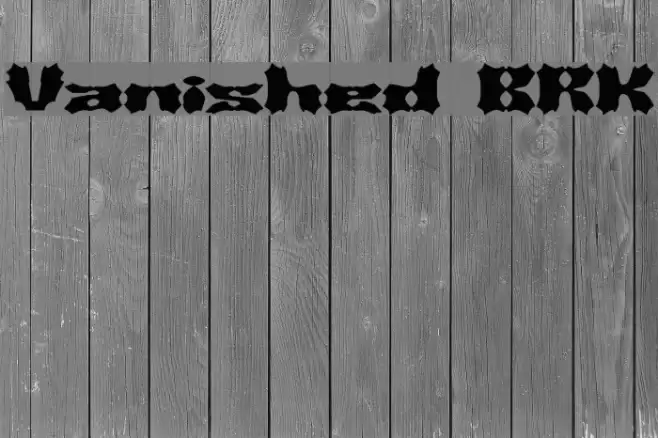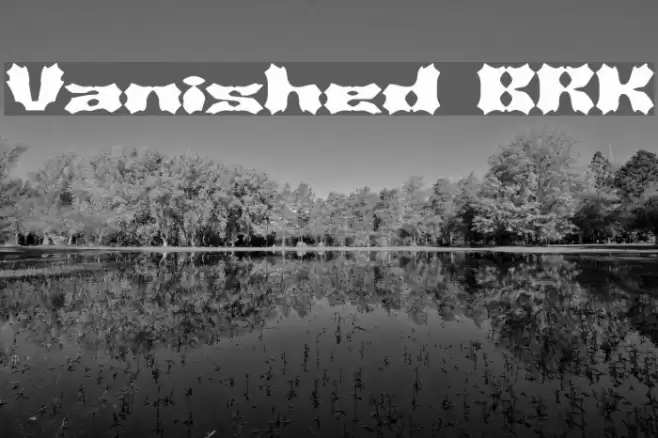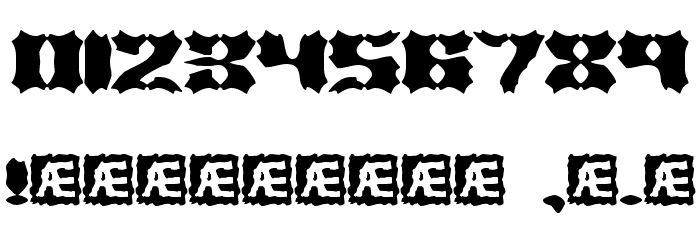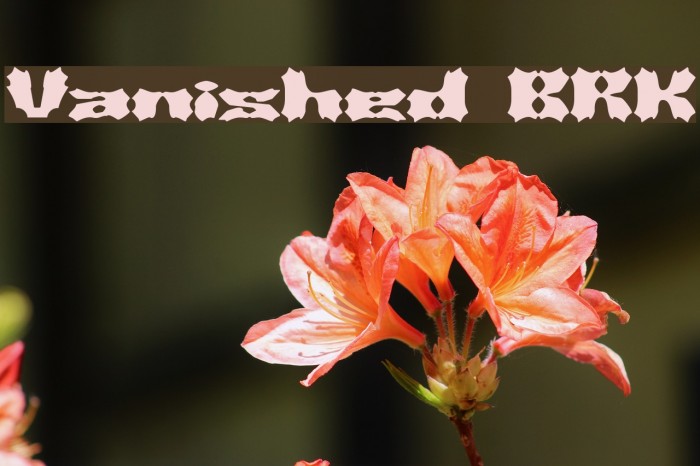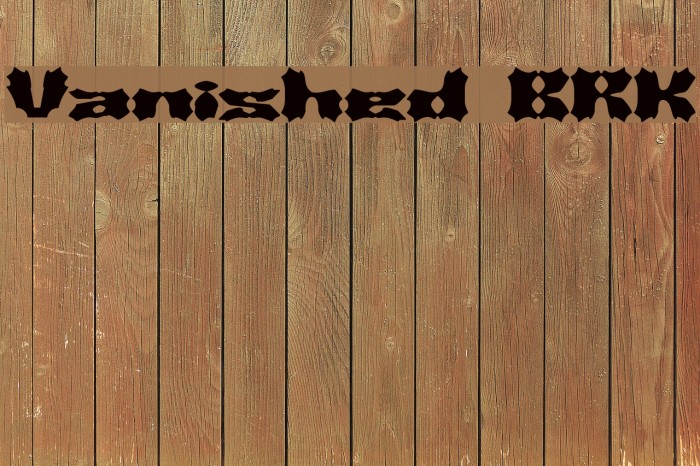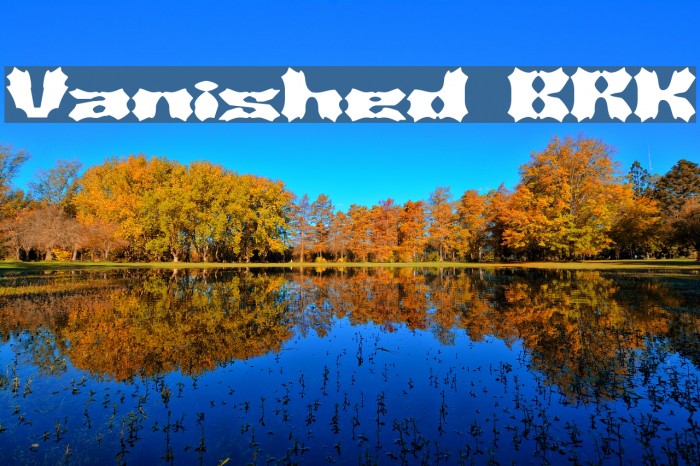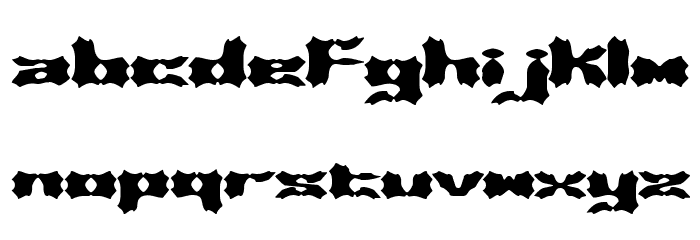
Vanished BRK Font
Vanished BRK Description
This font exhibits a bold, jagged style reminiscent of gothic or horror themes. The characters are heavily stylized with sharp edges and irregular contours, giving them a distinctive, eerie appearance. The uppercase and lowercase letters maintain a consistent design, with the uppercase being slightly more pronounced. Numbers and special characters follow the same aesthetic, ensuring uniformity across all glyphs. The font's unique design makes it ideal for projects requiring a dramatic and eye-catching typeface.
A bold, jagged font with a gothic, horror-inspired style from Gothic fonts.
- Proposed Projects: Ideal for horror-themed posters, Halloween invitations, video game titles, and any project needing a dramatic, eye-catching font.